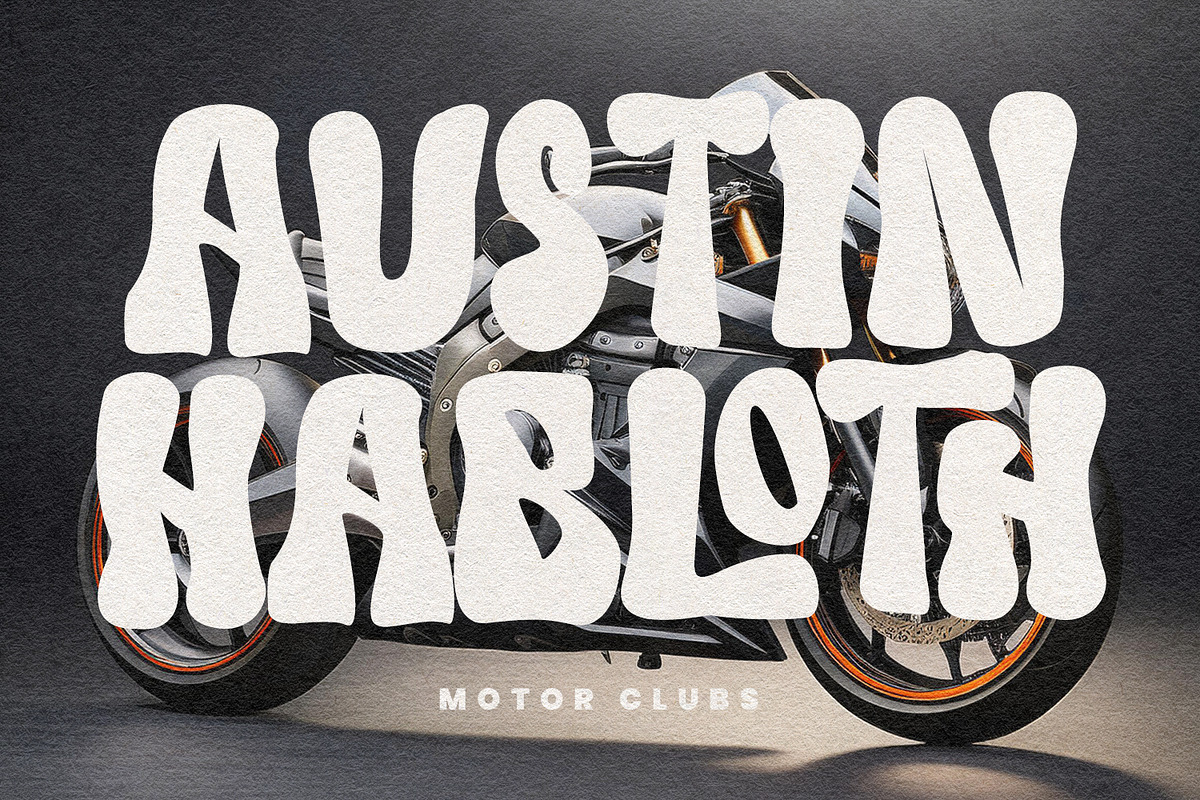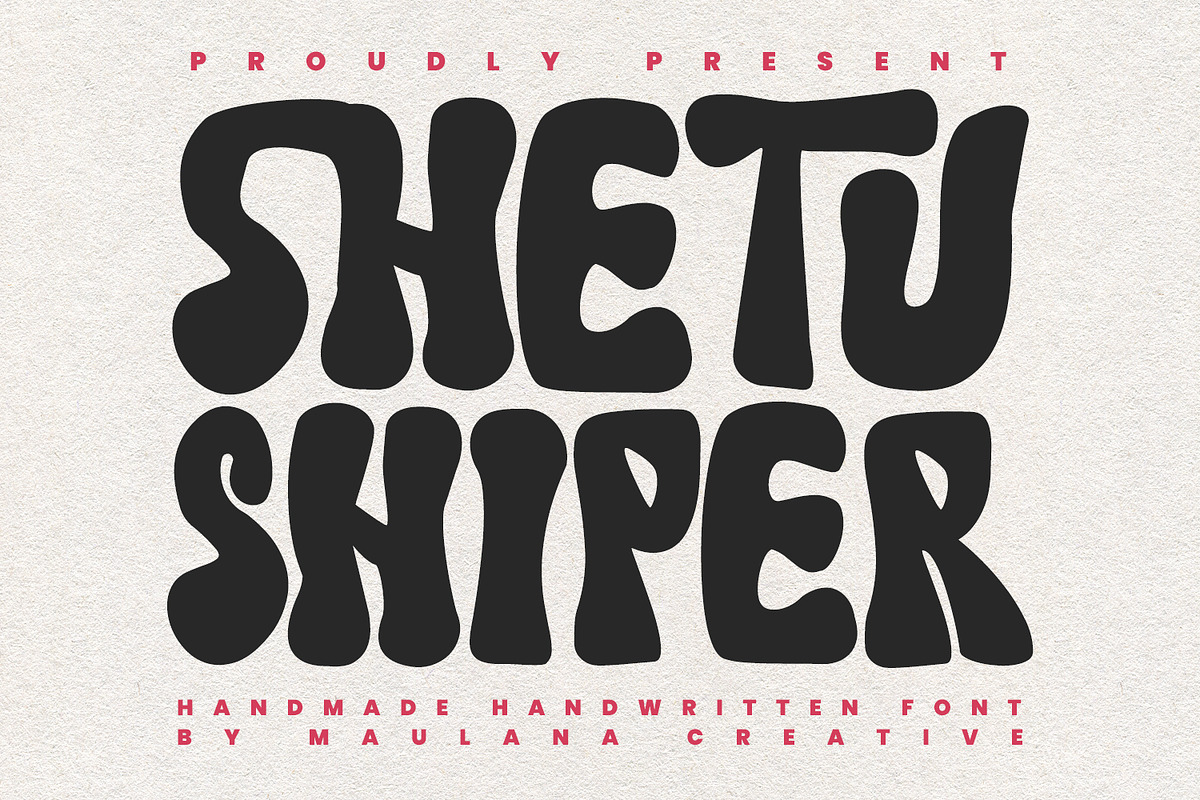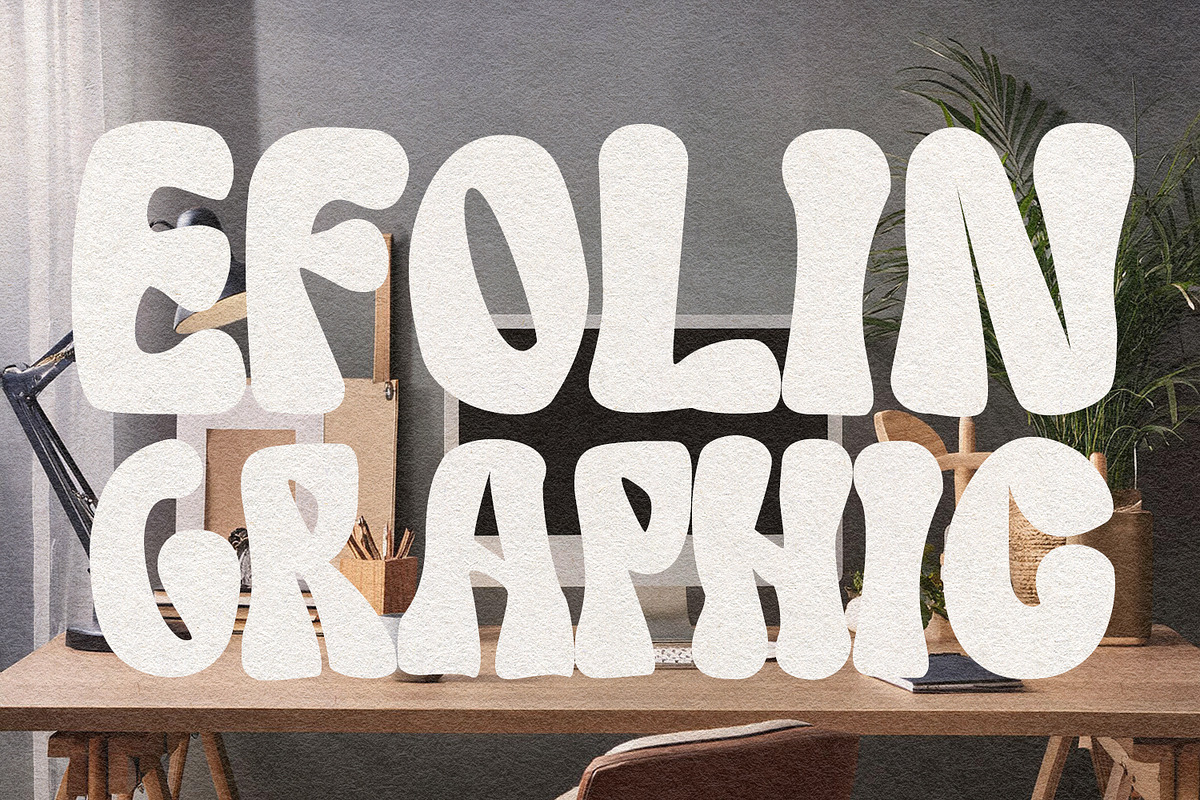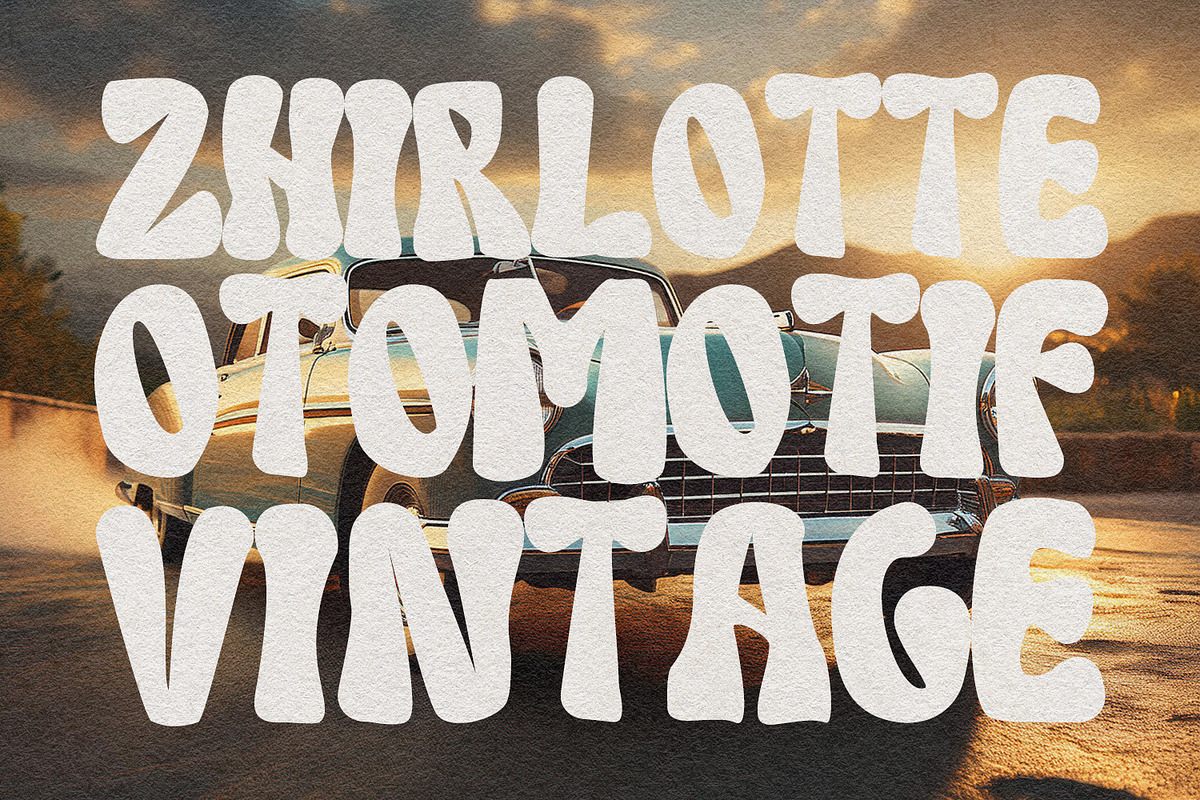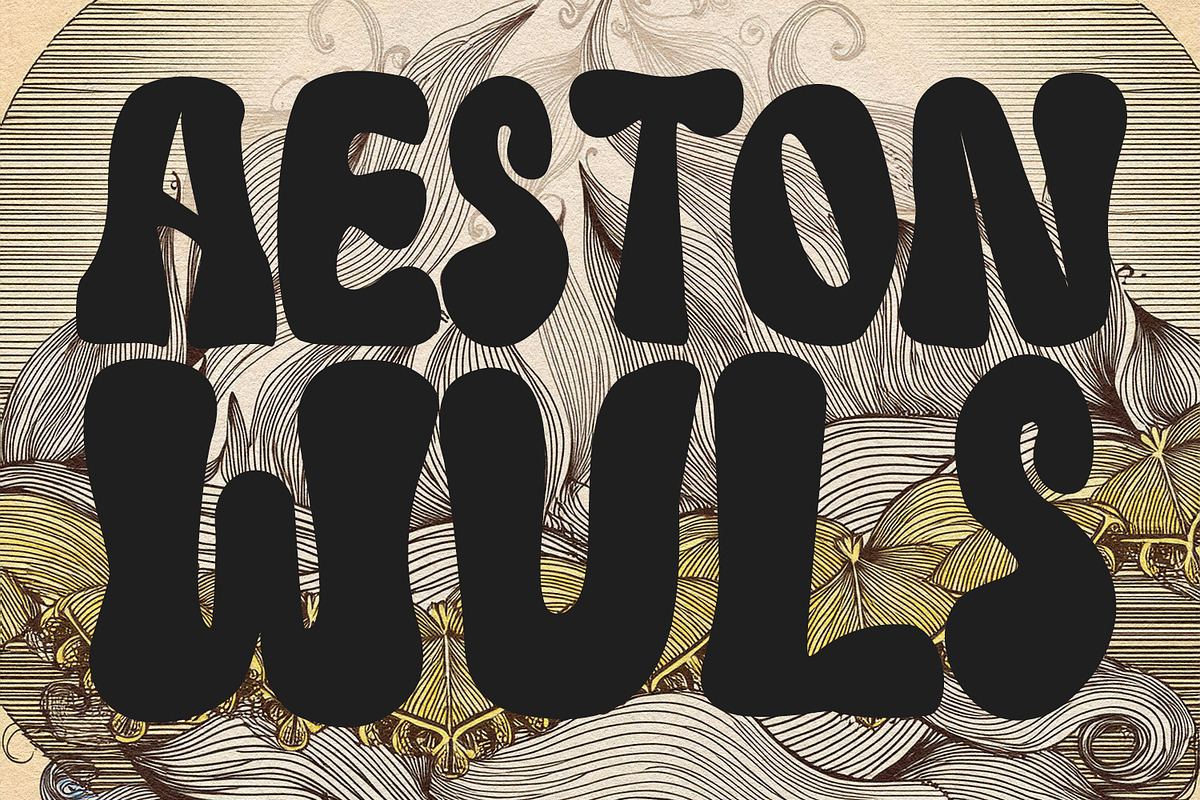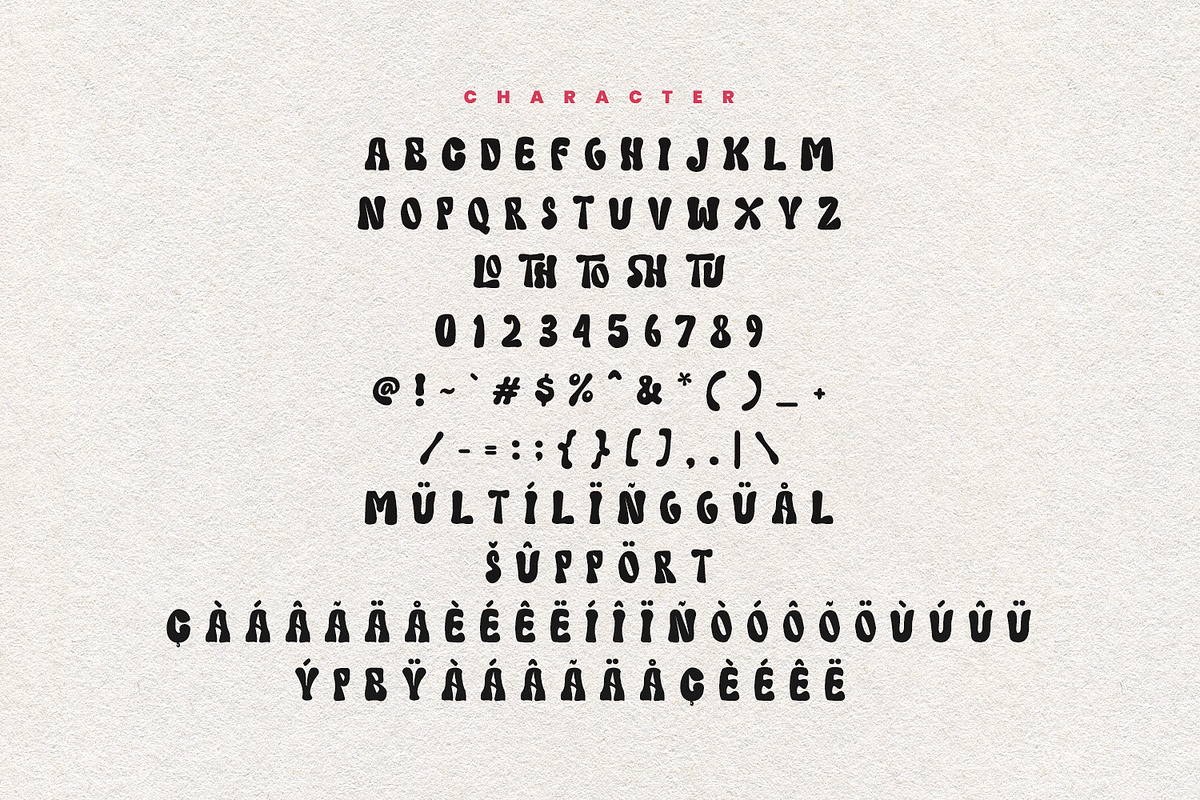
Give your designs an authentic brush handcrafted feel. "Shetu Shiper Handmade Handwritten Font" is perfectly suited to signature, stationery, logo, typography quotes, magazine or book cover, website header, flyer, clothing, branding, packaging design and more.